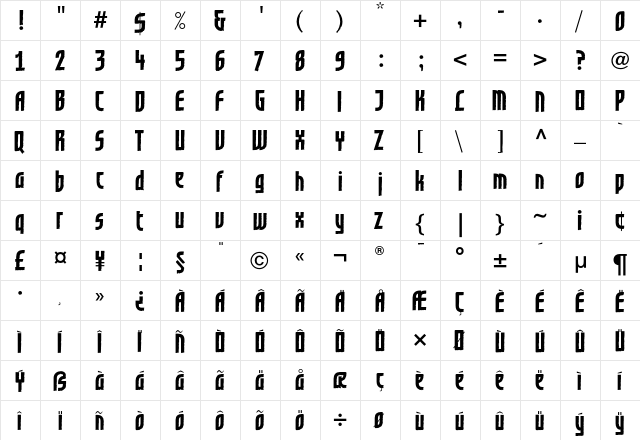
GrafiloneLLBold Regular
Design Context for GrafiloneLLBold Typeface
GrafiloneLLBold offers clean, dependable letterforms without strong stylistic allegiance, making it a practical choice for designers who need flexibility. Its bold stroke weight gives it real presence on the page.